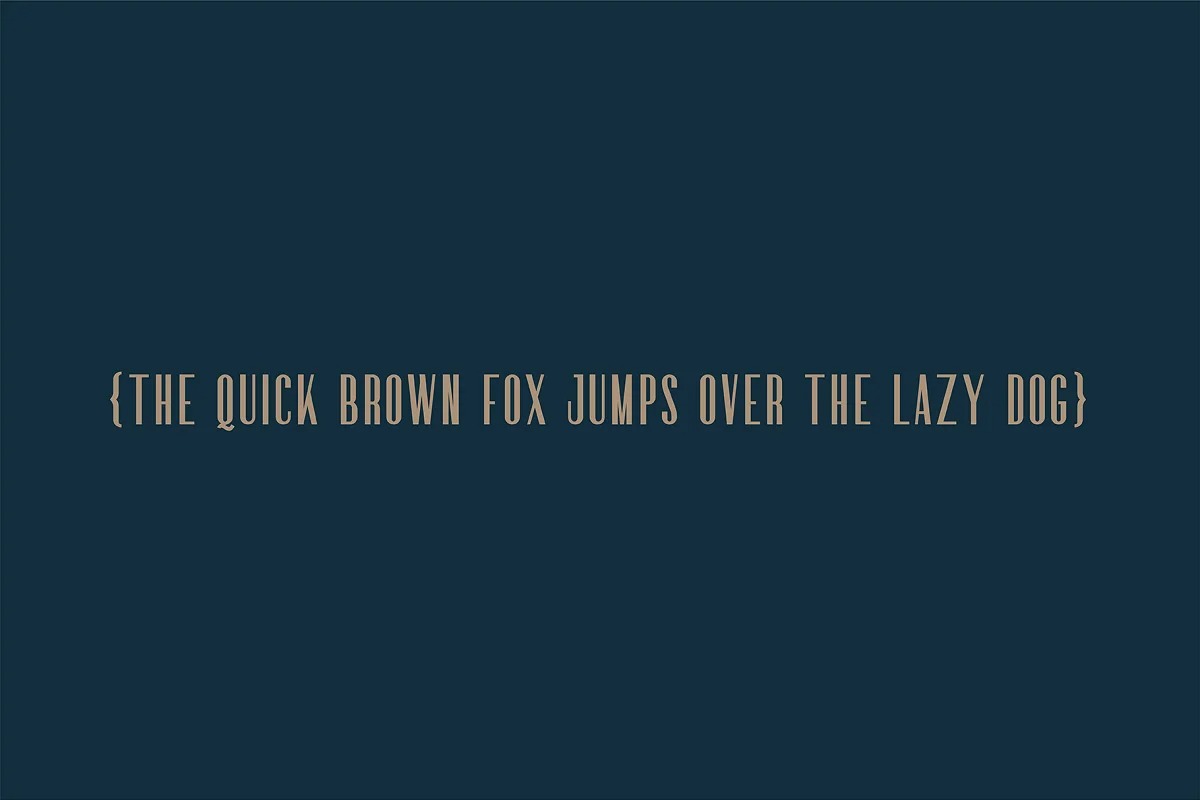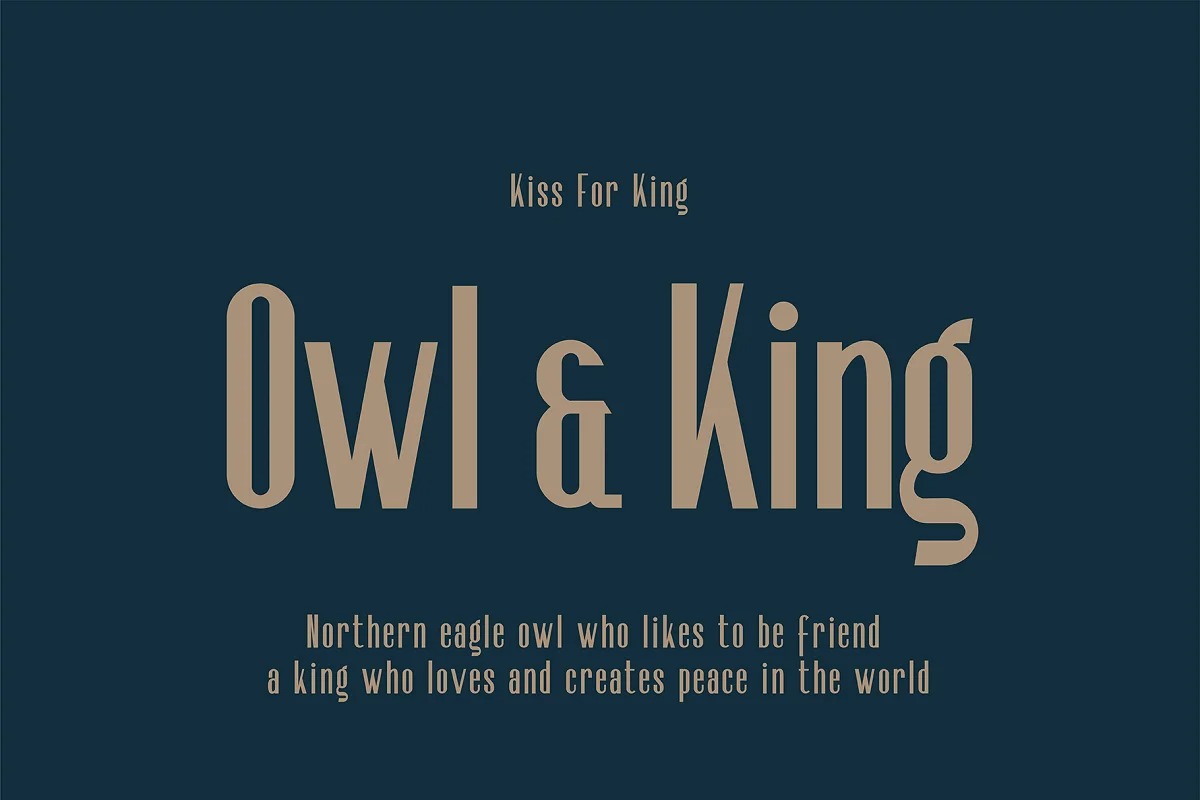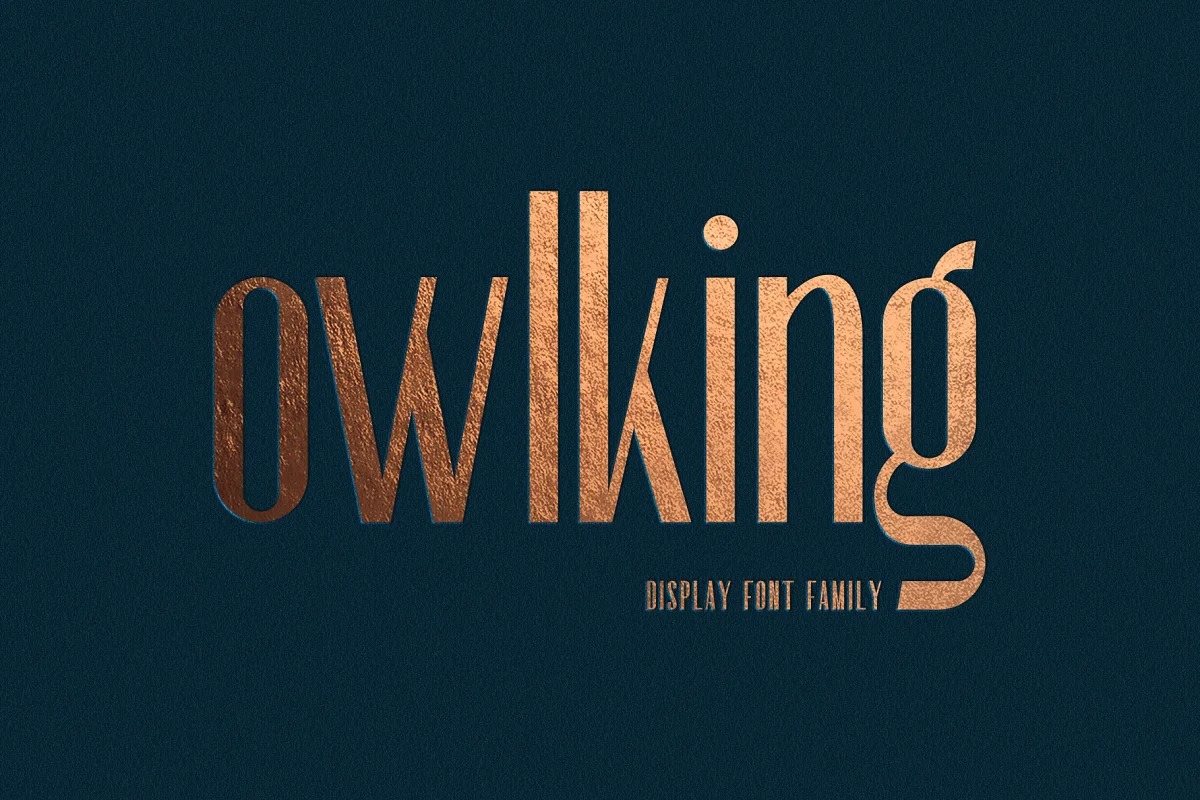
OWLKING Font
OWLKING Sans Serif Font
If you’re looking for a display sans serif font to attract your audiences or customers then we’ve got the font for you! This font is equipped with Uppercase Letters, Lowercase Letters made with unique and cool shapes, Numbers, and Multilingual Support. This font is made for any professional branding project, Great for creating titles, Movie titles, Event titles, Social media titles, Book cover titles, Poster titles, branding, posters, Each letter has a unique and beautiful touch.